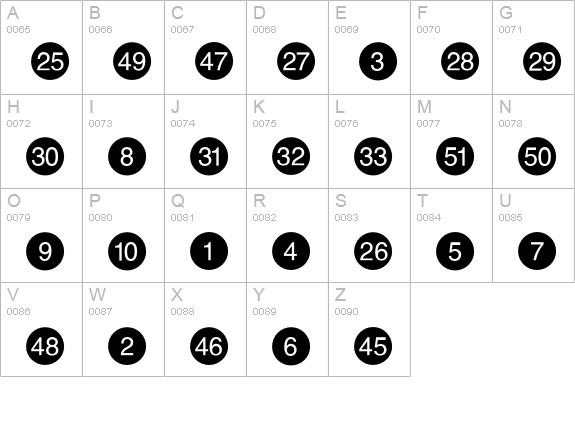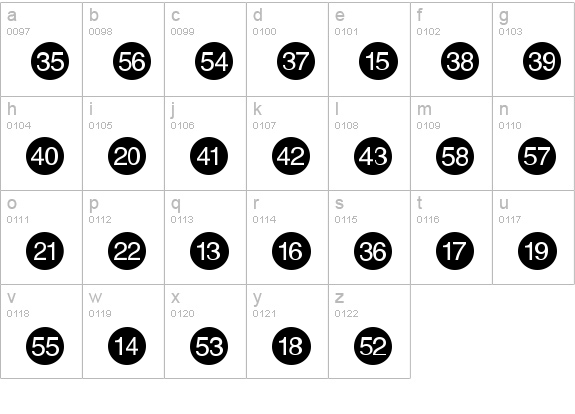
NumericsP03 Font Details
NumericsP03 font is a modern and sleek typeface that combines sharp edges with a clean and minimalistic design. Its geometric shapes and futuristic style make it perfect for tech-related projects, digital art, and branding materials. The font features a full set of characters, including numbers and symbols, allowing for versatile and eye-catching typography. Best of all, NumericsP03 font is available for free download at FontsMarket.com. This means that you can easily access and use this stylish font in your projects without any cost. Embrace the clean lines and contemporary feel of NumericsP03 font to elevate your designs and make a statement.